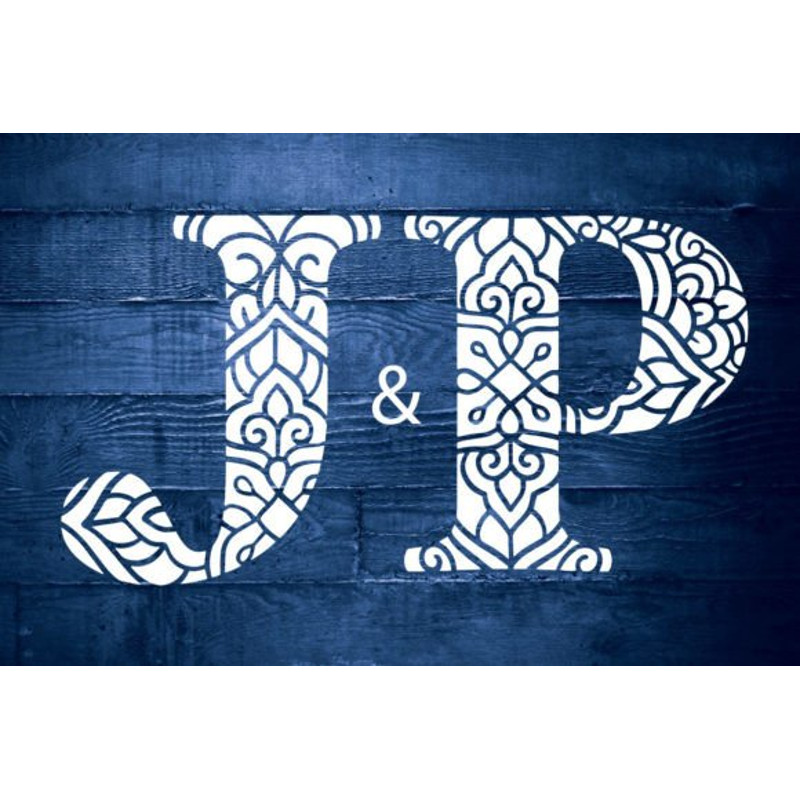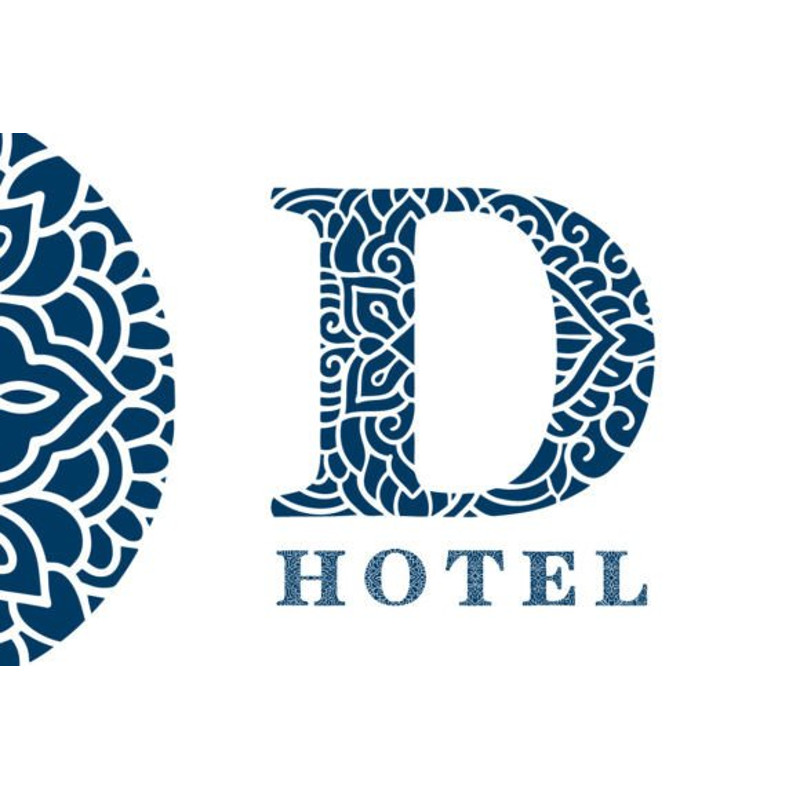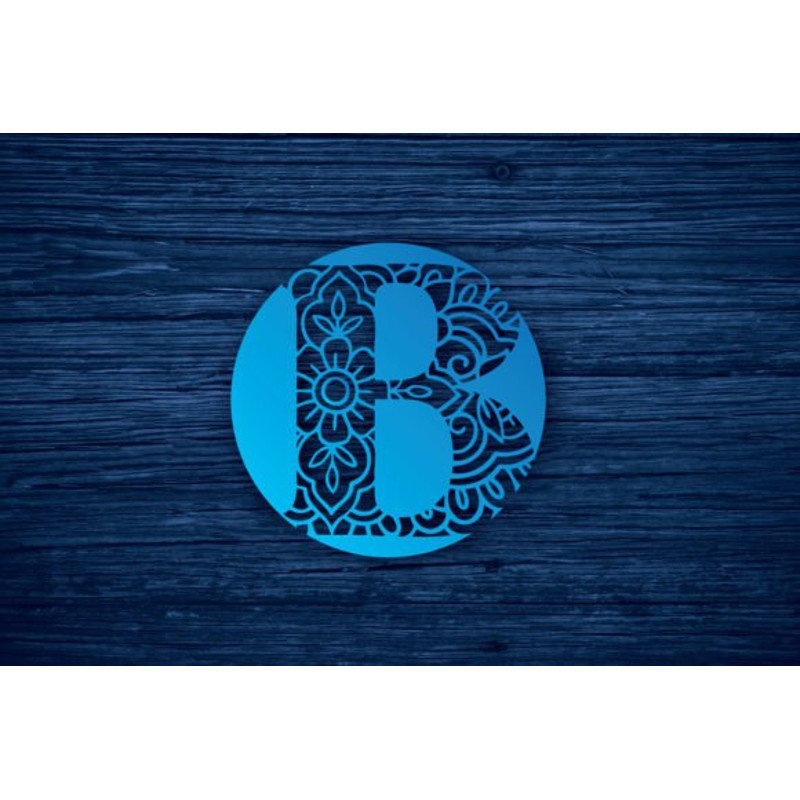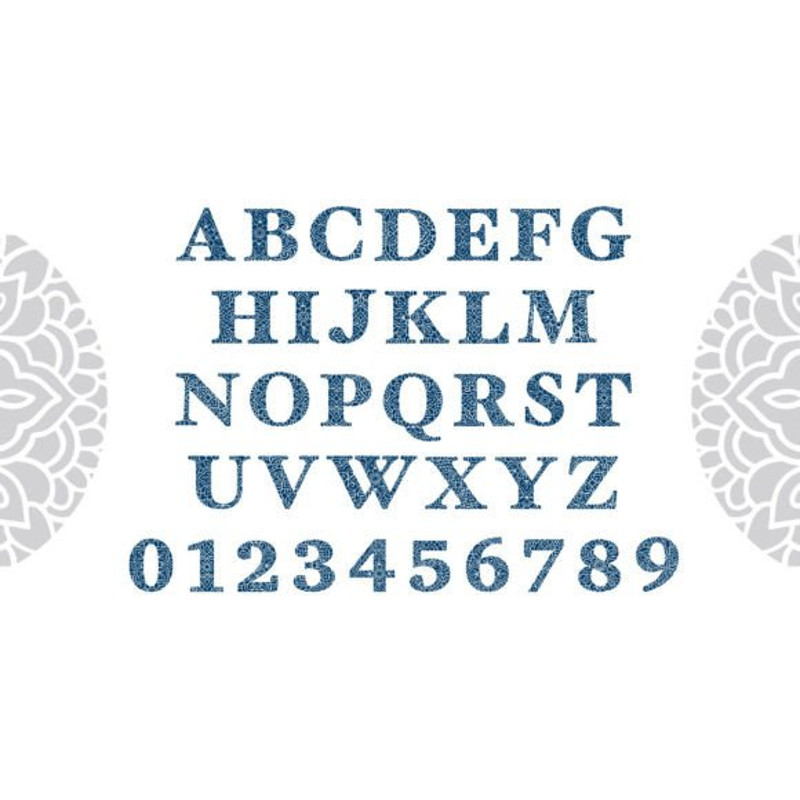
Antique Font
Antique is a vintage local Thai art style, with many smooth ornament line art in the inside.
Perfect for any alphabet name, title, vintage logo, product packaging, branding project, magazine, social media, or just to express words above the background.